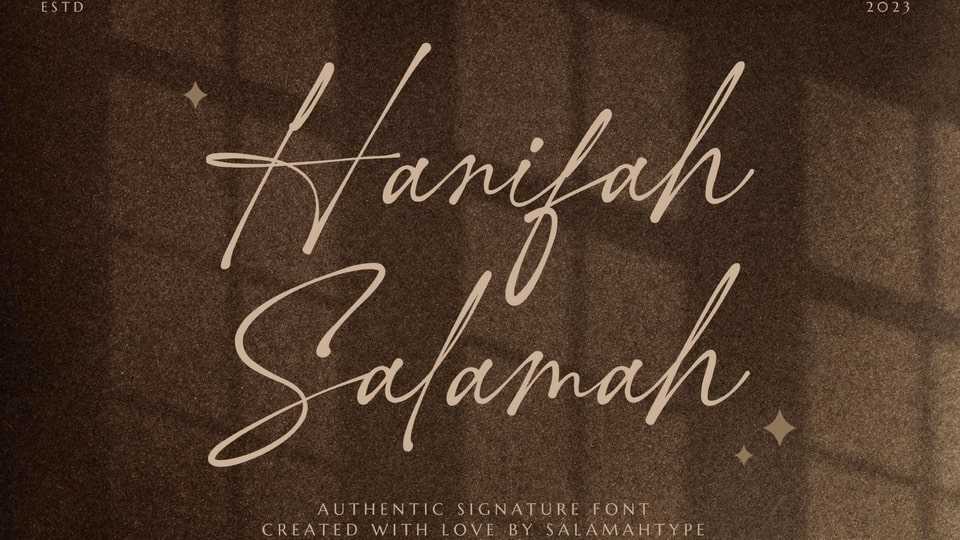
Download Hanifah Salamah font, a beautiful, special edition typeface that displays elegance and natural lines in every shape. Hanifah Salamah font is perfect for projects like social media, advertising, product packaging and so on.